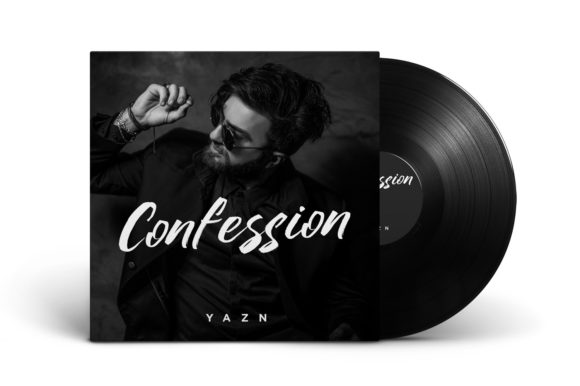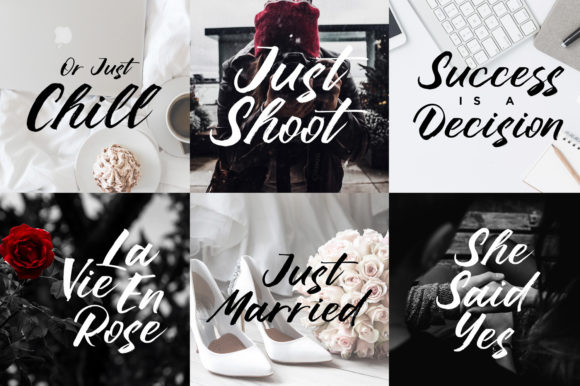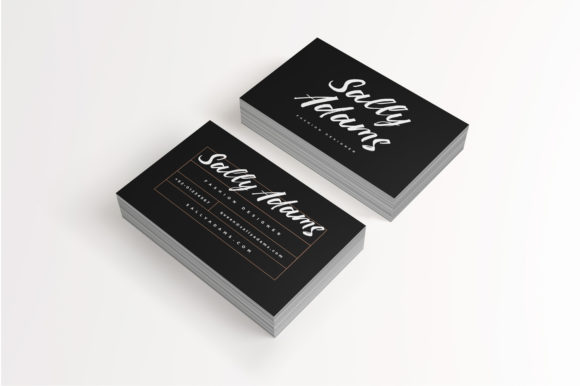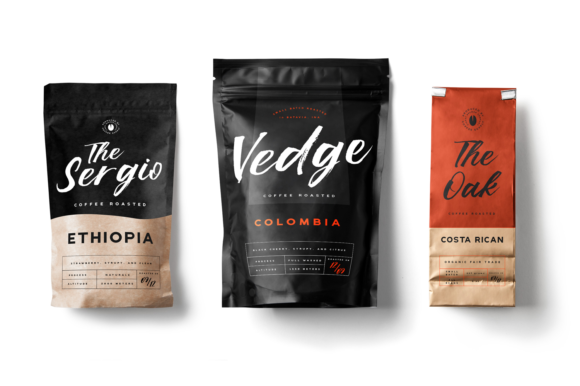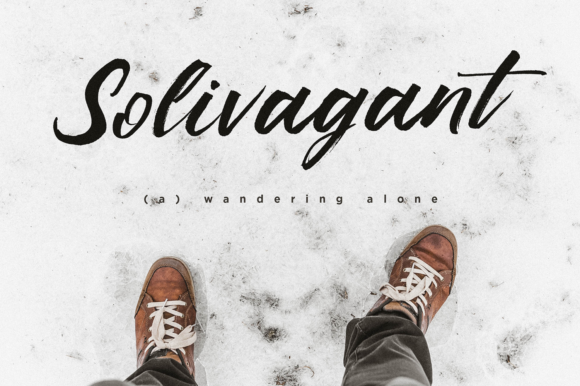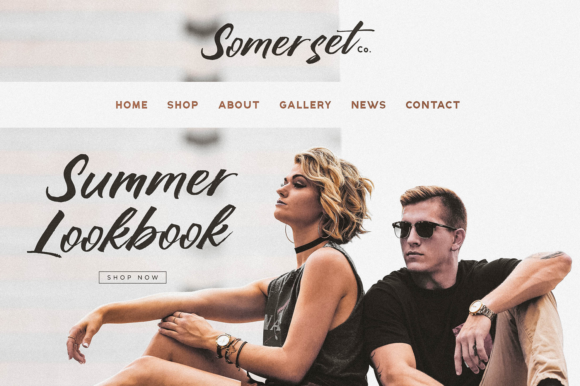
Introduction to Ruffle Font
Ruffle is a flowing and bold handwritten font that’s great for delivering any message with confidence, authenticity and charm.
It will elevate a wide range of crafting ideas, from cards, to branding, labels and much more .
Ruffle Font offers exceptional quality and versatility, making it a valuable addition to your design toolkit. Whether you’re creating for personal projects or commercial use, Ruffle Font delivers professional results.